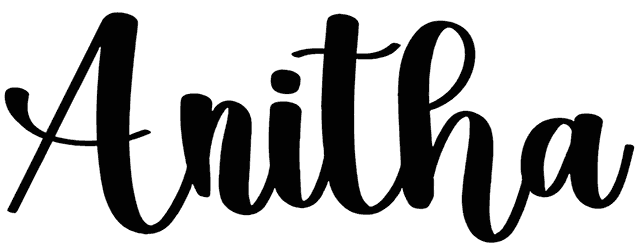
Anitha Font
Right now, get kicked out of running this script font with a cultivated vibe before anyone else uses it. Here, thanks to RB, Anitha, an invitation font with soft curly lettering, moves forward to highlight your graphical displays.
Valentine cards, cosmetic brands, invitations, and other departments that demand a sweet, warm touch are missing such a font. Definitely, you will be on the ball by adding this A-Z font to any project.